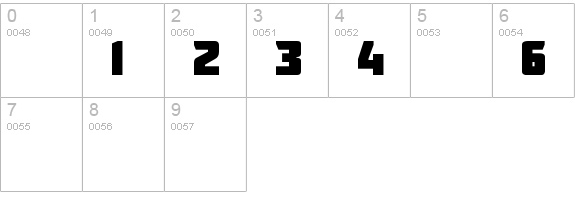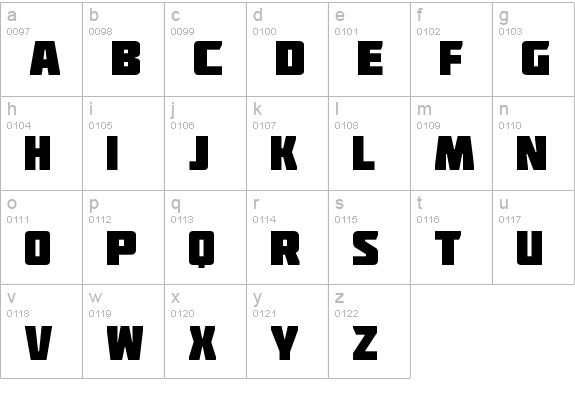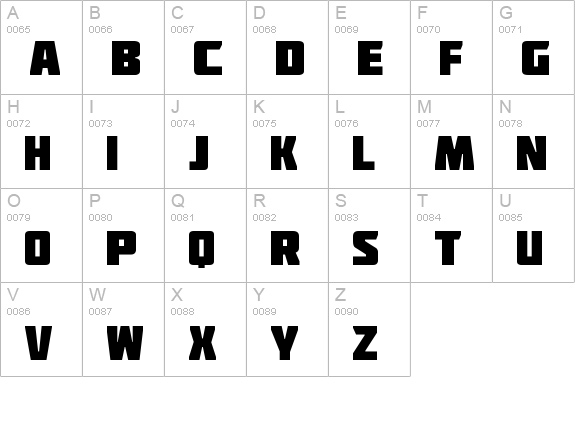
Deadpool Movie Font Details
The Deadpool Movie font is the perfect choice for those who want to add a touch of irreverence and boldness to their designs. Inspired by the iconic typography used in the Deadpool movie franchise, this font captures the essence of the Merc with a Mouth himself. With its sharp edges and dynamic letterforms, it exudes a sense of edgy humor and unconventional style. What sets the Deadpool Movie font apart is that it is freely available to download at FontsMarket.com. This means that designers and fans alike can access this unique and eye-catching font without any cost. Whether you're creating a poster, a logo, or a social media graphic, this font will surely make a statement and grab attention. The Deadpool Movie font is versatile and can be used for various creative projects. Its boldness and playfulness make it suitable for comic books, movie titles, merchandise, and more. It brings a sense of fun and excitement to any design, adding an extra layer of personality. With its freely available download at FontsMarket.com, the Deadpool Movie font allows designers to unleash their creativity without any limitations. It's a font that embodies the spirit of Deadpool himself - rebellious, unconventional, and unapologetically unique. So, if you're looking to add a touch of Deadpool's wit and charm to your designs, look no further than the Deadpool Movie font.